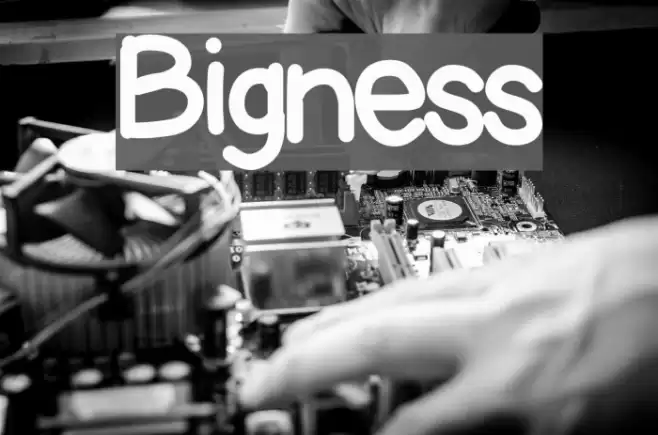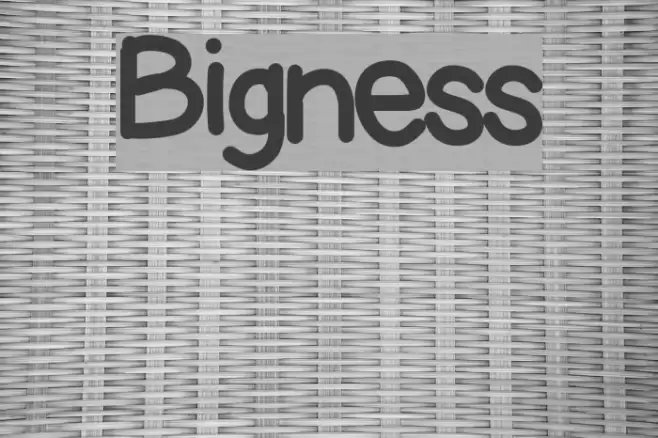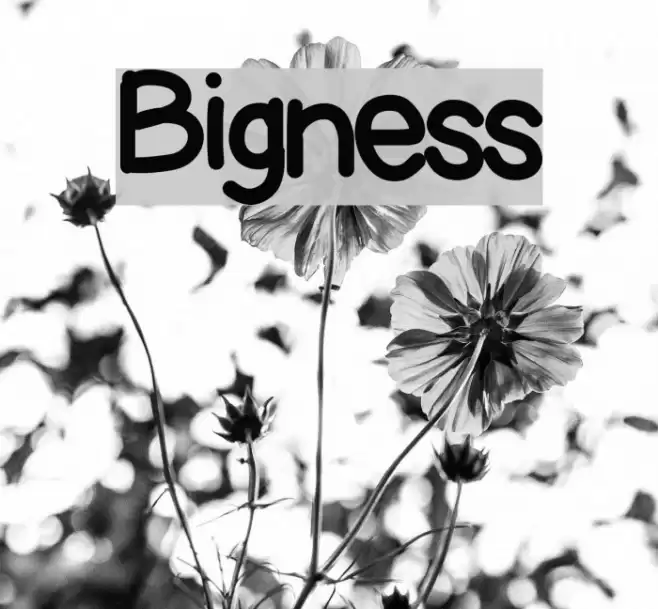
Bigness Font
Bigness Description
This playful and bold font features rounded edges and a hand-drawn aesthetic, giving it a friendly and approachable feel. The characters are thick and consistent, with a uniform stroke width that adds to its boldness. The uppercase and lowercase letters maintain a cohesive style, with the lowercase letters slightly smaller but equally bold. Numbers and special characters are designed to match the overall style, ensuring a harmonious look across all text elements. The font's simplicity and clarity make it easy to read, while its unique style adds a touch of personality.
A bold, rounded, and playful hand-drawn font with a friendly aesthetic from Uncategorized fonts.
- Proposed Projects: Ideal for children's books, playful branding, casual invitations, and creative posters.
- Overall Style: Playful